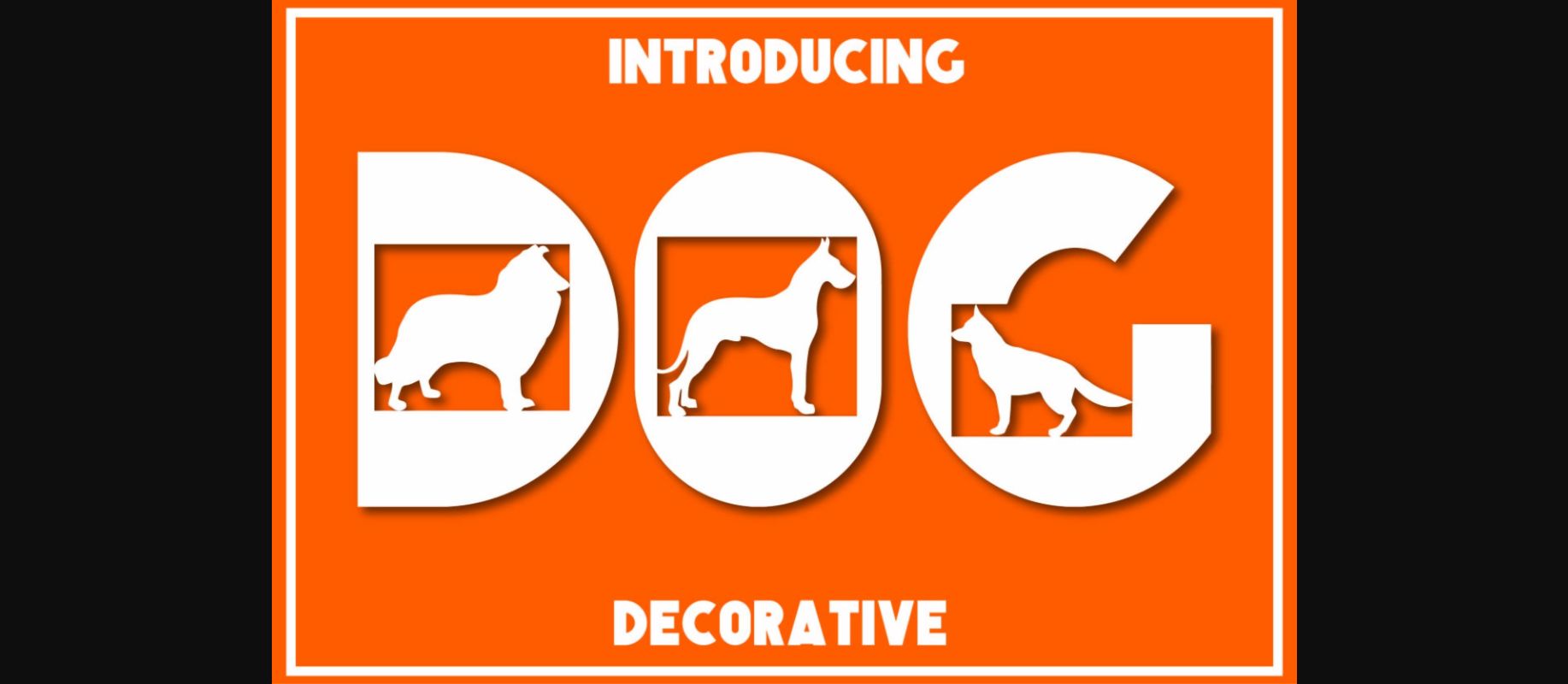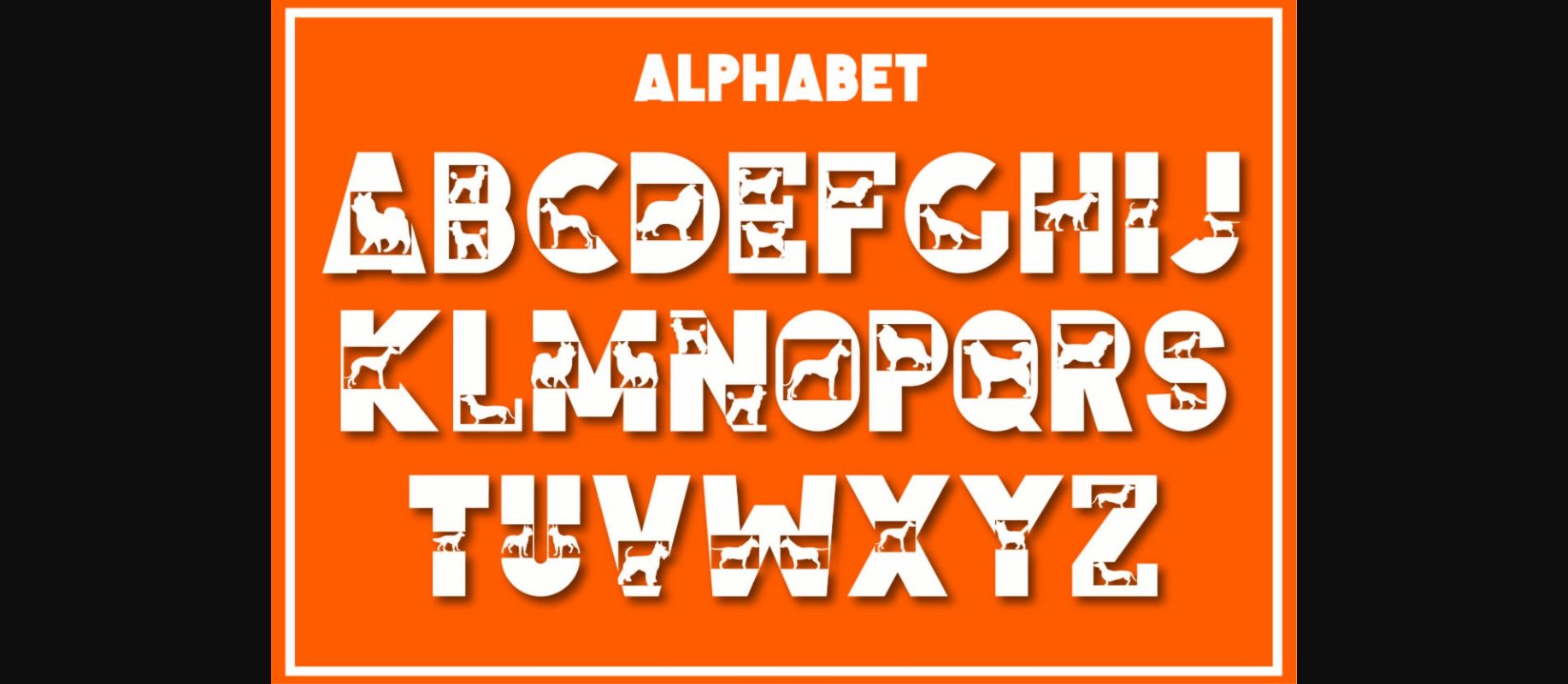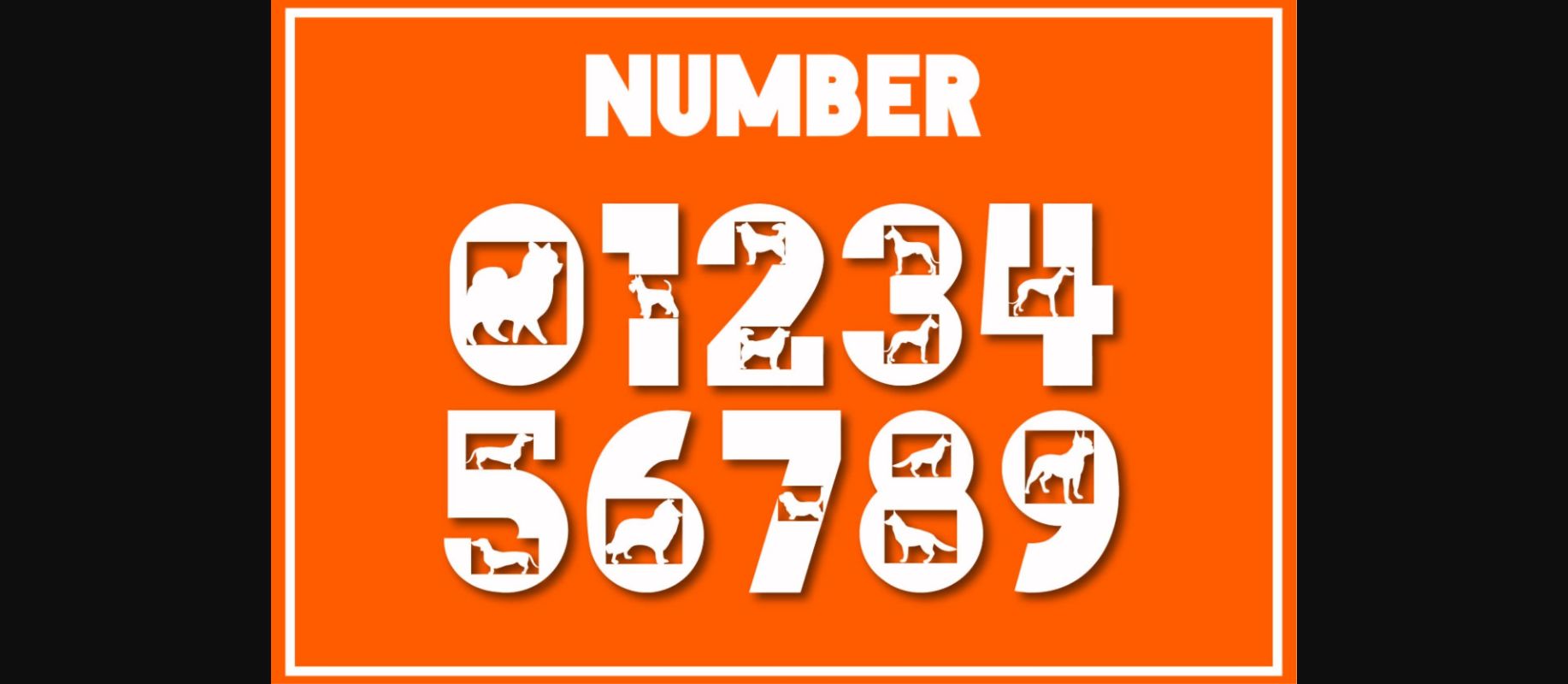
Dog Font
About Dog Font
Cute Dog is a bold, cool, and fun decorative font. It embodies playfulness and authenticity and is the perfect choice for any children’s activity or school project.